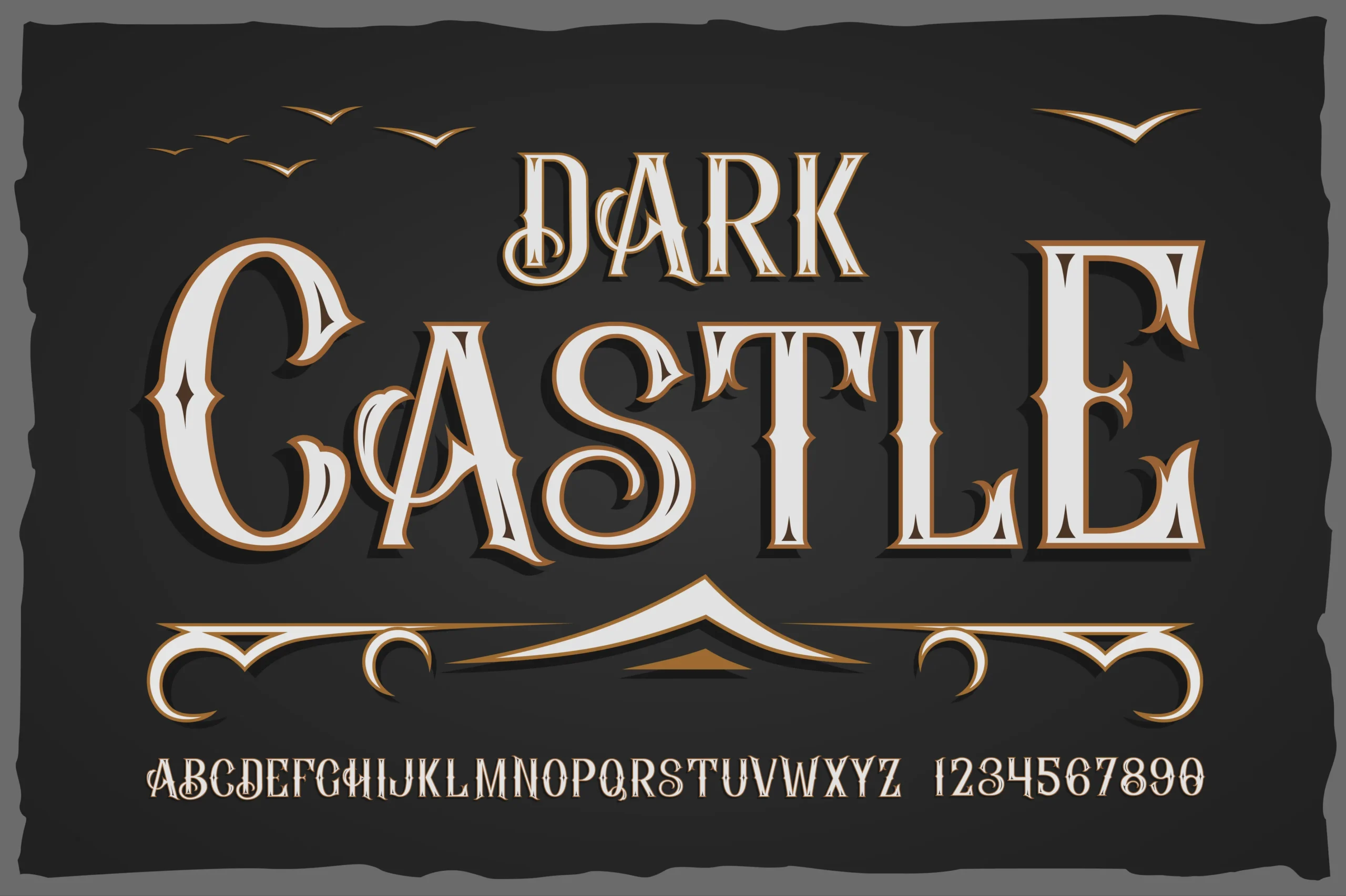
Dark Casrle Otf Vintage Label Font
Introducing the Dark Castle Otf Vintage Label Font, a meticulously crafted typeface that brings a touch of nostalgia to your design projects. With its vintage label style, this font is perfect for creating eye-catching branding, logos, and packaging that evoke a sense of timeless elegance.
• Unique vintage label design
• Highly legible and versatile
This font features a variety of weights that maintain clarity and character, making it suitable for both display and text applications.
• Ideal for branding and logo design
• Great for vintage-themed projects
• Perfect for print materials such as invitations and labels
• Can be used in digital applications like websites and social media graphics